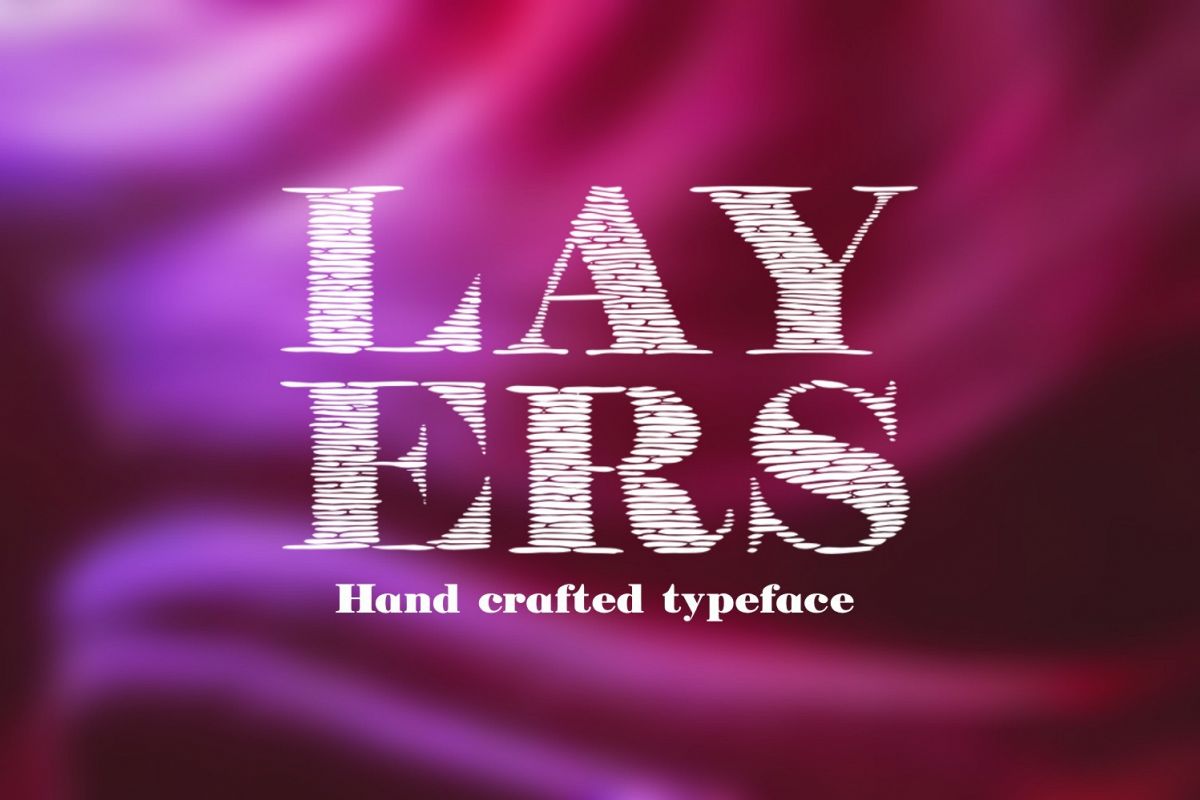
Layers font
Introducing Layers hand drawn decorative font.
This font is great for book covers, titling, signage, poster, flyers, calendars, headlines, businnes cards and other printed stationeries.